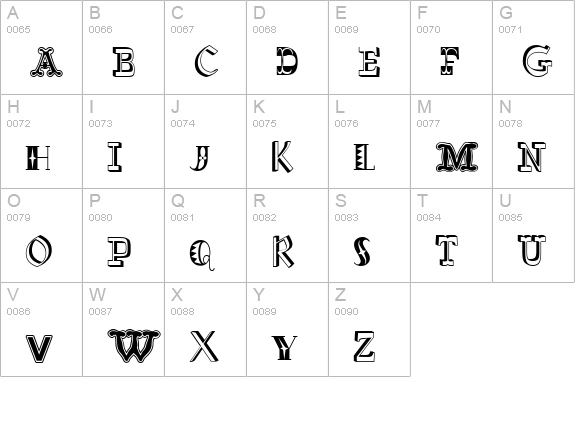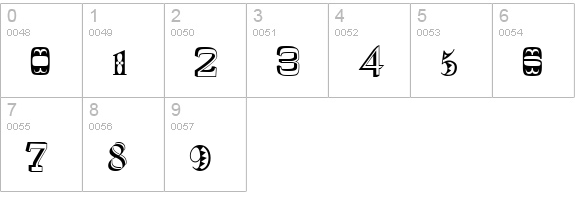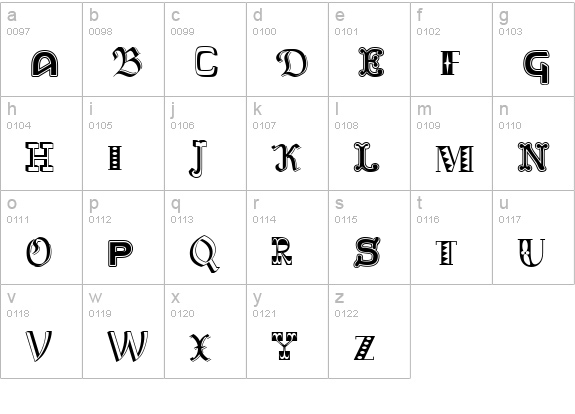
RummageSaleOne Font Details
RummageSaleOne font is a charming and versatile typeface that exudes a sense of warmth and nostalgia. Its quirky yet elegant design makes it perfect for a wide range of projects, from vintage-inspired designs to modern branding. The unique hand-drawn style of RummageSaleOne font adds a personal touch to any text, making it stand out and grab the attention of your audience. What makes RummageSaleOne font even more appealing is that it is available for free download at FontsMarket.com. This means you can easily access this delightful font and use it in your projects without any cost. Whether you're working on a poster, logo, website, or any other creative endeavor, RummageSaleOne font is sure to enhance your design and bring it to life. Download this charming font today and let your creativity flow freely with RummageSaleOne.